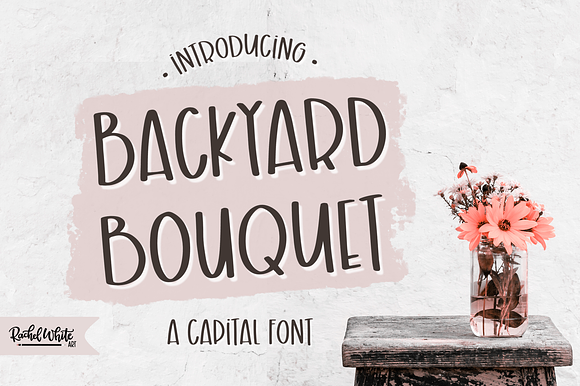
Backyard Bouquet A Capital Font
Backyard Bouquet A Capital Font by rachelwhiteart is a font selected for branding, posters, packaging, typography.
Why Backyard Bouquet A Capital Font is worth a look
Backyard Bouquet A Capital Font by rachelwhiteart fits naturally into Branding, posters, packaging, typography.